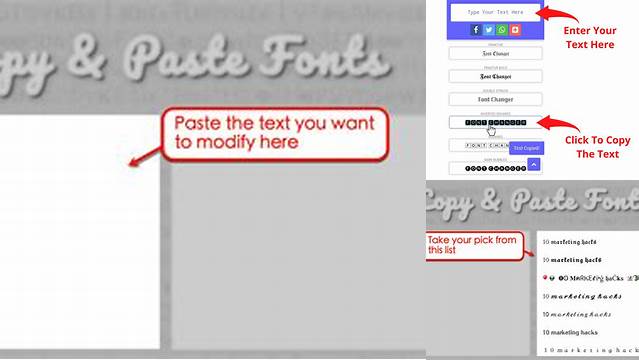
LingoJam: Copy & Paste Font Changer Online
Hey guys! Ever stumbled upon a cool font online and wished you could use it everywhere? Or maybe you're just tired of the same old boring fonts and want to spice things up? Well, you're in luck! Let's dive into LingoJam, the ultimate online font changer that lets you copy and paste fonts with ease. In this article, we'll explore everything you need to know about LingoJam, from what it is and how it works, to its amazing features, and even some tips and tricks to get the most out of it. So, buckle up and let’s get started!
What is LingoJam?
LingoJam is a fantastic online tool that allows you to generate text in various stylish and unique fonts. Think of it as your personal font playground where you can transform ordinary text into eye-catching designs. The beauty of LingoJam lies in its simplicity and user-friendliness. You don't need to be a tech whiz or a design guru to use it. Just type in your text, and LingoJam will instantly generate a plethora of font styles for you to choose from. These fonts aren't your typical system fonts; they're special characters and symbols combined in creative ways to mimic the look of different fonts. This is why you can easily copy and paste them across various platforms and applications.
LingoJam's font generation magic comes from the clever use of Unicode characters. Unicode is a universal character encoding standard that includes a vast array of symbols and characters beyond the standard alphabet. LingoJam leverages this extensive library to create visually appealing fonts that stand out. This is particularly useful because these "fonts" are essentially text, meaning they can be used on platforms that don't allow custom font uploads, such as social media sites like Instagram, Twitter, Facebook, and even in messaging apps. So, whether you're crafting a catchy Instagram bio, designing a unique tweet, or just want to add some flair to your messages, LingoJam has got you covered. The tool is designed to be incredibly intuitive. There are no complicated settings or confusing interfaces to navigate. You simply type your text into the input box, and LingoJam displays a range of font options below. You can then scroll through the options, select the one you like best, and copy it to your clipboard with a single click. It’s really that simple! Plus, LingoJam is completely free to use, making it accessible to everyone. No subscriptions, no hidden fees, just pure font-changing fun. The tool works seamlessly across different devices and browsers, so you can use it on your computer, tablet, or smartphone without any hassle. Whether you’re on Windows, macOS, Android, or iOS, LingoJam will work like a charm. This cross-platform compatibility is a huge advantage, allowing you to create cool text designs wherever you are.
How Does LingoJam's Font Changer Work?
The magic behind LingoJam's font changer lies in its ingenious use of Unicode characters. Unicode is essentially a universal character encoding system that assigns a unique number to every character, symbol, and glyph across different languages and platforms. This means that Unicode encompasses a vast library of characters far beyond the standard letters and numbers we use every day. LingoJam taps into this extensive library to create its unique fonts. Instead of relying on traditional font files (like TTF or OTF), LingoJam combines various Unicode symbols and characters to mimic the appearance of different fonts. For example, to create a bold font, LingoJam might use characters that are specifically designed to be thicker or more prominent. Similarly, for italic fonts, it might use characters that are slanted or skewed. This approach allows LingoJam to generate a wide range of font styles without requiring any special font installations or software. When you type text into LingoJam, the tool instantly translates it into these Unicode-based font variations. This translation process is incredibly fast and efficient, so you see the results in real-time. The generated fonts are essentially strings of Unicode characters, which means they can be copied and pasted into virtually any application or platform that supports Unicode. And that’s pretty much everywhere these days! This is a major advantage over traditional fonts, which often require specific software or browser support. With LingoJam, you don't have to worry about compatibility issues. The font you see on LingoJam will look the same wherever you paste it, whether it's on social media, in an email, or in a document. The process of using LingoJam is incredibly straightforward. You simply type your text into the input box, and the tool generates a list of font options below. Each option is a different combination of Unicode characters that mimic a particular font style. You can then scroll through the options and choose the one that best suits your needs. Once you've found a font you like, you can copy it to your clipboard with a single click. From there, you can paste it into any application or platform you want. It's that simple! The ease of use is one of the main reasons why LingoJam has become so popular. You don't need any technical skills or design experience to create stunning text effects. All you need is a web browser and a few seconds of your time. The tool's simplicity makes it accessible to everyone, from casual users who want to add some flair to their social media posts to professional designers who need a quick and easy way to generate unique text styles.
Features of LingoJam’s Font Changer
LingoJam's font changer comes packed with features that make it a go-to tool for anyone looking to spice up their text. Let's dive into some of the standout features that make LingoJam so awesome.
Wide Variety of Fonts
One of the biggest draws of LingoJam is the sheer variety of fonts available. You're not just limited to basic bold or italic; you can explore a whole universe of styles, from fancy cursive and bubbly fonts to edgy, gothic-inspired looks. Whether you're going for a playful vibe or something more serious, LingoJam has a font to match your mood. The font options include everything from elegant scripts and whimsical handwritten styles to futuristic and tech-inspired designs. This vast selection ensures that you can find the perfect font for any occasion, whether you're creating a birthday card, designing a poster, or just adding some personality to your social media posts. LingoJam’s font library is constantly growing and evolving. The developers are always adding new fonts and styles to keep things fresh and exciting. This means that you'll always have new options to explore, and you'll never get bored of the same old fonts. The variety also extends beyond just the style of the fonts. LingoJam offers different variations of the same basic font, such as bold, italic, underlined, and strikethrough versions. This allows you to fine-tune your text and create the exact effect you're looking for. Plus, LingoJam also includes a range of decorative fonts that incorporate symbols, emojis, and other special characters. These fonts are perfect for adding a touch of fun and whimsy to your text. For example, you can find fonts that include stars, hearts, arrows, and other decorative elements. These fonts are particularly popular for social media posts and messages, where you want to stand out from the crowd.
Real-Time Font Generation
LingoJam's real-time font generation is a game-changer. As you type, the fonts change instantly, so you can see exactly what your text will look like in different styles. No waiting, no refreshing, just immediate results. This real-time feedback makes the process of choosing the right font incredibly efficient and enjoyable. You can experiment with different fonts and see how they look with your text in real-time, allowing you to make quick decisions and find the perfect font for your needs. This feature is especially useful when you're working on a design project and need to see how different fonts will fit into your overall layout. Instead of having to generate each font separately and then paste it into your design, you can simply type your text into LingoJam and see all the options at once. This saves you time and effort, and it helps you to make better design choices. The real-time font generation also makes LingoJam a great tool for brainstorming and exploring different ideas. You can quickly try out different fonts and see how they change the tone and feel of your text. This can be particularly helpful when you're trying to come up with a catchy headline or a memorable slogan. By experimenting with different fonts, you can discover new and creative ways to express your ideas. The speed and responsiveness of LingoJam's real-time font generation are truly impressive. The tool is designed to handle large amounts of text without any lag or delays. This means that you can type entire paragraphs or even pages of text and still see the fonts change instantly. This is a significant advantage over other font generators that can be slow and clunky, especially when dealing with longer texts. The real-time preview feature also extends beyond just the font itself. LingoJam also allows you to customize the size and color of the fonts, and it provides a preview of how the fonts will look on different backgrounds. This level of customization is incredibly helpful when you're trying to create a specific visual effect or match the font to your brand’s style.
Copy and Paste Functionality
This is where LingoJam truly shines. The generated fonts are not images; they're actual text characters made using Unicode. This means you can copy and paste them anywhere – social media, messaging apps, documents, you name it! This copy-and-paste functionality is a game-changer, allowing you to use stylish fonts across various platforms without any compatibility issues. Imagine being able to use a cool, cursive font in your Instagram bio, or a bold, eye-catching font in your tweets. With LingoJam, this is not just possible, it's incredibly easy. The copy-and-paste feature is one of the key reasons why LingoJam has become so popular. Unlike traditional font generators that produce images, LingoJam's fonts are actual text characters. This means that they can be easily copied and pasted into any application or platform that supports Unicode, which is virtually everywhere these days. This eliminates the need to save images, upload them, and then resize them to fit your needs. With LingoJam, you can simply copy the text and paste it directly into your desired location. This saves you time and effort, and it ensures that your fonts always look crisp and clear, regardless of the platform you're using. The copy-and-paste functionality also extends to different devices and operating systems. You can use LingoJam on your computer, tablet, or smartphone, and the fonts will look the same wherever you paste them. This cross-platform compatibility is a huge advantage, allowing you to create stylish text on the go and use it across all your devices. The ease of copying and pasting also makes LingoJam a great tool for collaboration. You can easily share your stylish text with friends, colleagues, or clients, and they will be able to view it without any compatibility issues. This is particularly useful for designers and marketers who need to share text-based content with others. The copy functionality is designed to be as user-friendly as possible. When you select a font in LingoJam, a copy button appears next to it. Simply click the button, and the font is automatically copied to your clipboard. You can then paste it into any application or platform you want. This one-click copy feature makes the process of using LingoJam incredibly quick and efficient.
User-Friendly Interface
LingoJam boasts a clean, intuitive interface that makes it super easy to use. There are no complicated menus or confusing settings – just type your text and watch the magic happen! The simplicity of the interface is a major plus, especially for users who are not tech-savvy. You don't need any special skills or knowledge to use LingoJam. The interface is designed to be self-explanatory, so you can start creating stylish text right away. The clean and minimalist design of the interface makes it easy to focus on the fonts themselves. There are no distractions or unnecessary elements, which helps you to quickly find the perfect font for your needs. The interface is also highly responsive, so it works smoothly on different devices and screen sizes. Whether you're using a desktop computer, a tablet, or a smartphone, LingoJam will look and function perfectly. The user-friendly interface extends beyond just the visual design. LingoJam also provides clear and concise instructions on how to use the tool. There are no complicated tutorials or manuals to read. Simply type your text, select a font, and copy it to your clipboard. The entire process is designed to be as straightforward as possible. The simplicity of the interface makes LingoJam a great tool for both casual users and professionals. Whether you're creating a birthday card, designing a poster, or just adding some personality to your social media posts, LingoJam's user-friendly interface makes it easy to get the job done. The interface is also designed to be accessible to users with disabilities. LingoJam follows web accessibility guidelines, ensuring that the tool is usable by people with visual, auditory, cognitive, or motor impairments. This commitment to accessibility makes LingoJam a truly inclusive tool that can be used by everyone.
Free to Use
Yep, you heard it right! LingoJam is completely free to use. No hidden fees, no subscriptions, just pure font-changing goodness. This makes it accessible to everyone, whether you're a student, a professional, or just someone who loves playing with fonts. The fact that LingoJam is free to use is a major advantage. You can access all of its features and fonts without having to pay a dime. This makes it a great option for anyone who wants to create stylish text without breaking the bank. There are no hidden fees or subscriptions to worry about. LingoJam is supported by advertising, but the ads are non-intrusive and don't detract from the user experience. The free-to-use model also makes LingoJam a great tool for experimentation. You can try out different fonts and styles without any financial risk, allowing you to explore your creativity and find the perfect font for your needs. The accessibility of LingoJam's free model has contributed to its popularity. It's a tool that anyone can use, regardless of their budget or technical skills. This has made it a favorite among students, social media users, and designers who need a quick and easy way to generate stylish text. The free access doesn't mean that LingoJam compromises on quality. The tool is constantly updated and improved, and the developers are committed to providing a seamless and enjoyable user experience. LingoJam also offers excellent customer support, so if you ever have any questions or issues, you can get help quickly and easily. The combination of free access and high-quality service makes LingoJam a truly exceptional tool.
So there you have it! LingoJam is a fantastic tool for anyone who wants to add a bit of flair to their text. With its wide variety of fonts, real-time generation, and easy copy-and-paste functionality, it's a must-try for social media enthusiasts, designers, and anyone in between. Give it a whirl and see how it can transform your text today! Whether you're looking to spice up your social media posts, add a unique touch to your design projects, or simply experiment with different fonts, LingoJam has something to offer everyone. Its user-friendly interface and free-to-use model make it accessible to all, and its vast library of fonts ensures that you'll always find the perfect style for your needs. So, go ahead and unleash your creativity with LingoJam – the possibilities are endless!